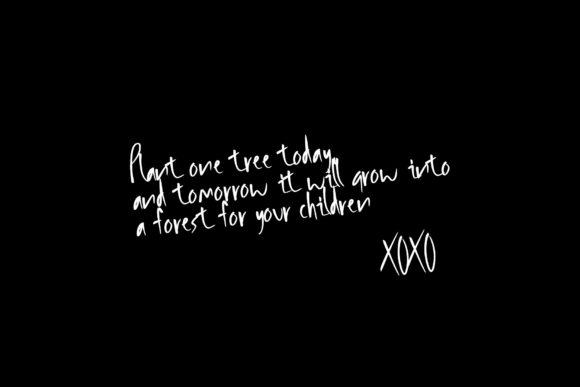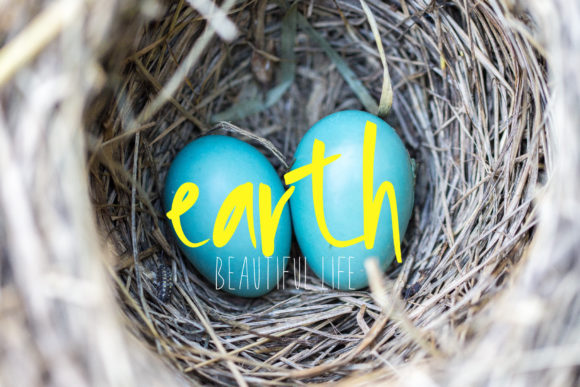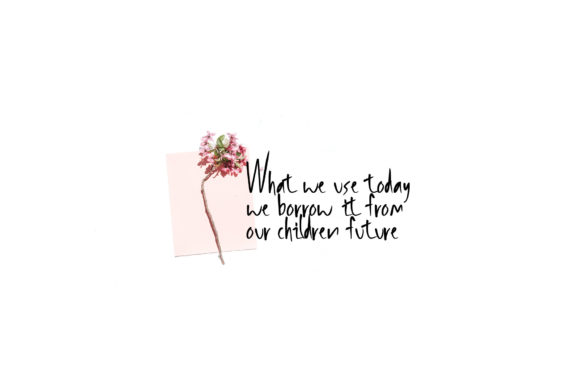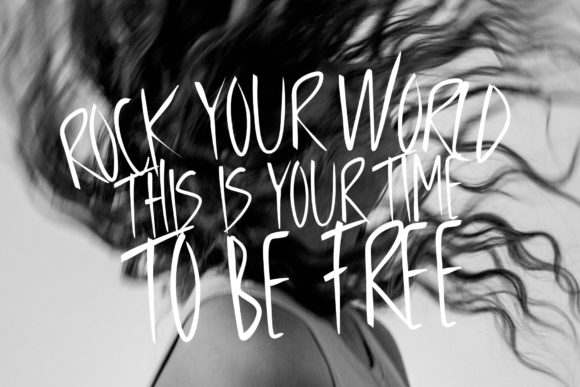
About Thale Font
Thale is a simple, relaxed, and neat lettered handwritten font that offers a versatile and natural aesthetic. With its clean and straightforward characters, this font can be applied to a variety of design ideas, particularly those that have a casual or informal vibe.
The simplicity and relaxed nature of Thale make it highly accessible and easy to read. Its clean letterforms bring a sense of clarity and simplicity to your designs. Whether you’re working on social media graphics, personal projects, casual branding, or any other creative endeavor, Thale font maintains a natural and unpretentious look.
The versatility of Thale allows it to adapt to various design contexts. Its simple and clean design complements a wide range of styles, making it suitable for both digital and print applications. Whether you’re aiming for a modern and minimalist look or a more laid-back and casual feel, Thale can be effortlessly incorporated into your design compositions.
Thale’s versatility extends to the endless variations that can be explored. This font offers room for customization and experimentation, enabling you to add your personal touch and create unique typographic arrangements. Have fun exploring the different possibilities and embracing the trendy and effortless vibe that Thale brings to your designs.
In summary, Thale is a simple, relaxed, and neat lettered handwritten font that offers versatility and natural charm. Its casual and informal nature makes it well-suited for a variety of design ideas. Enjoy the creative journey with Thale and explore its endless variations as you infuse your projects with a trendy and effortless aesthetic.